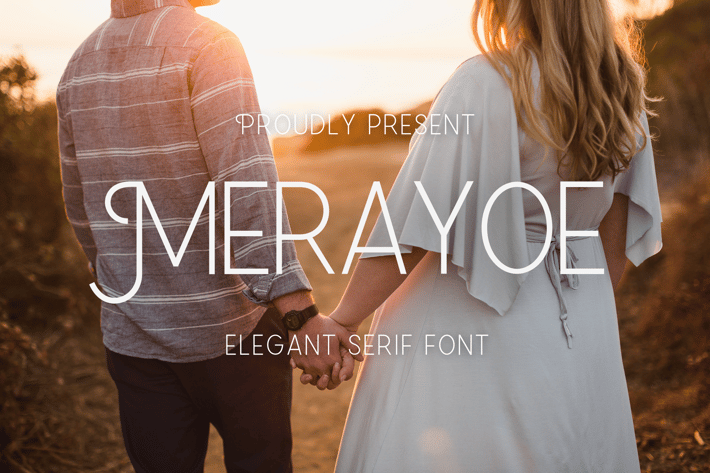
Merayoe | Sans Serif Font
For your creative project, use the Merayoe-themed modern sans serif. modern sans serif is appropriate for every kind of design you produce, including greeting cards, posters, logos, and branding.